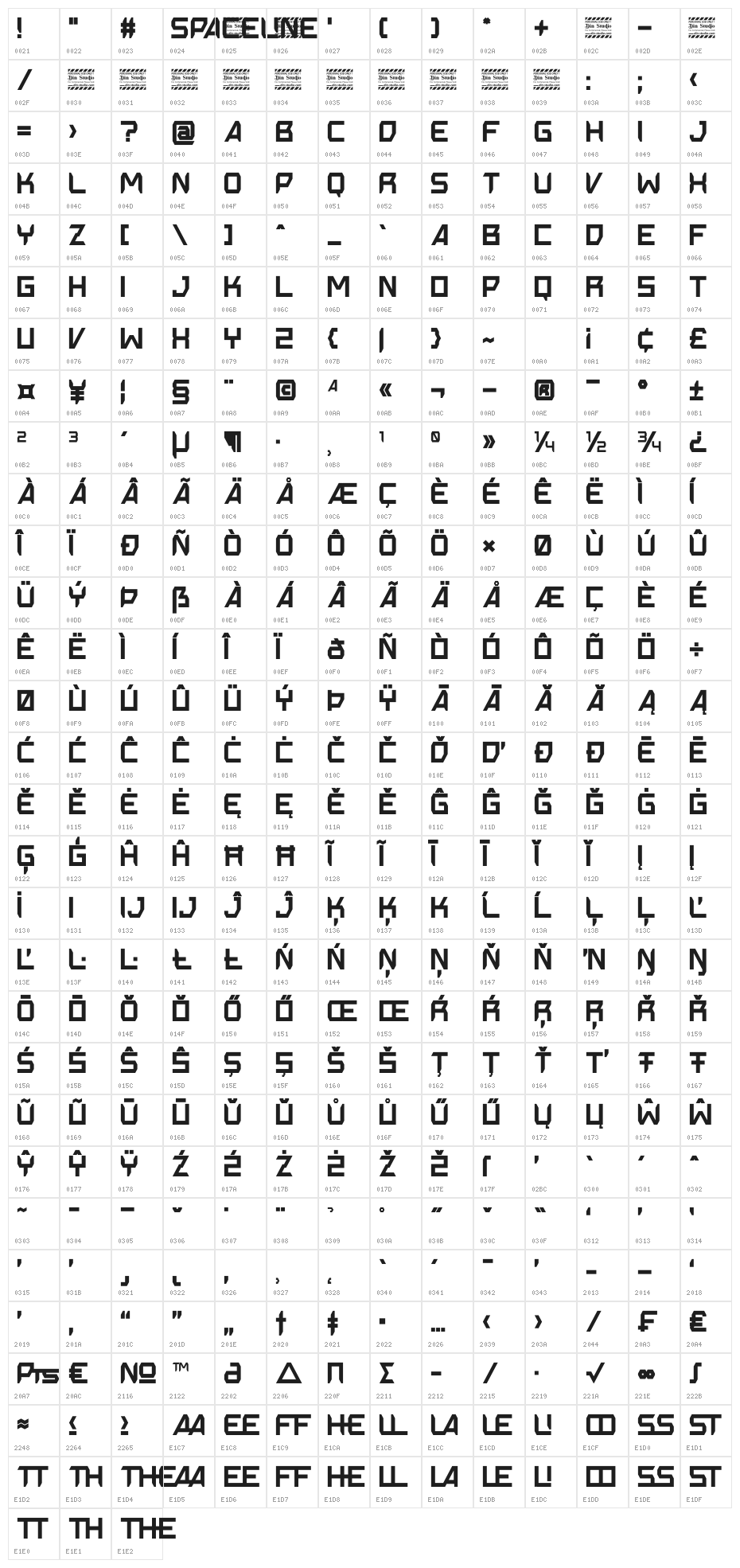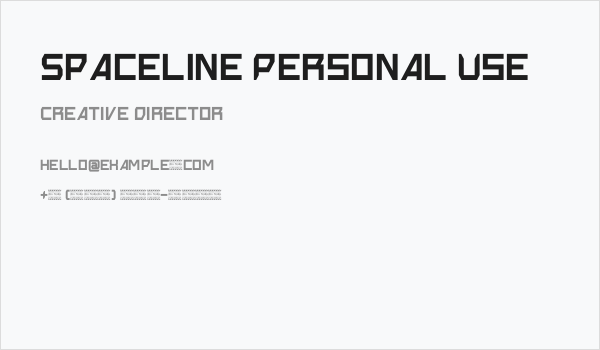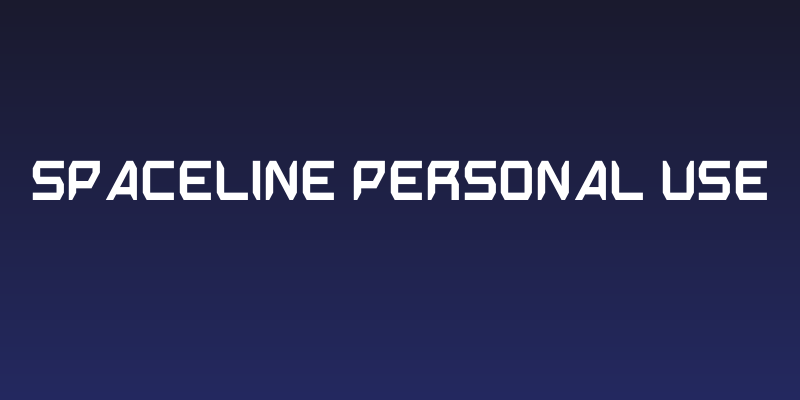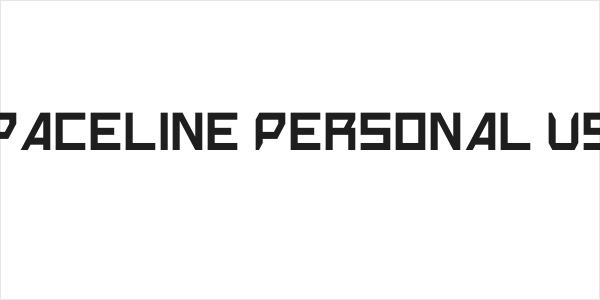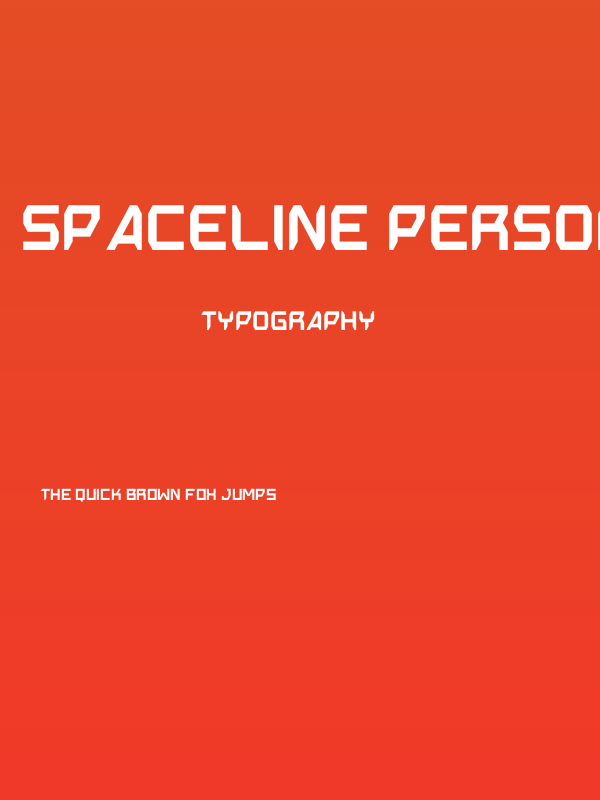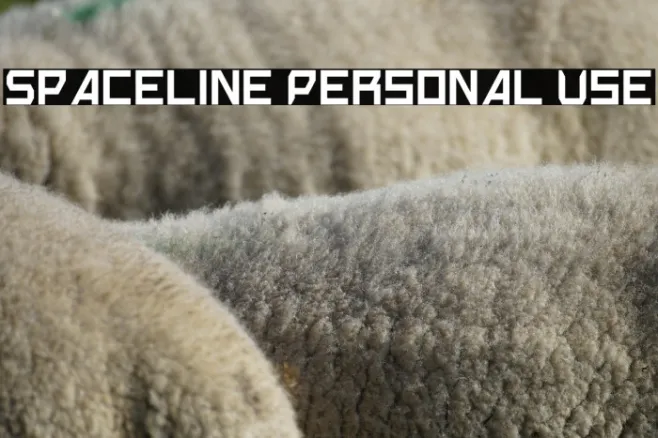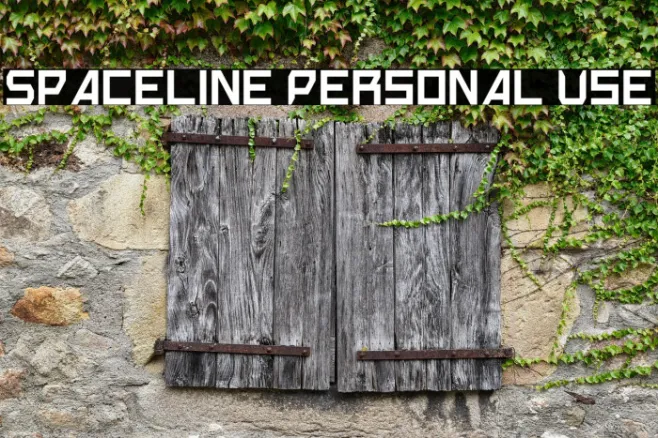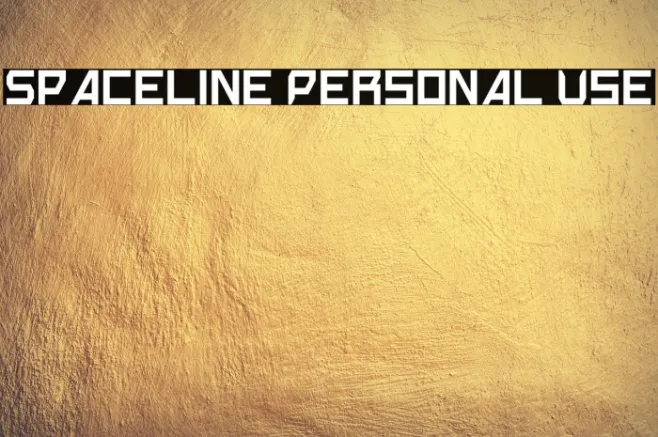
Spaceline Personal Use Font
Spaceline Personal Use Description
This font features a futuristic and geometric design, characterized by sharp angles and clean lines. The uppercase letters are bold and angular, giving a sense of modernity and technological advancement. The lowercase letters maintain the same angular style, ensuring consistency throughout the typeface. Numbers and special characters are designed to match the overall aesthetic, making them suitable for digital and sci-fi themed projects. The font's distinct style makes it stand out, ideal for projects that require a modern and edgy look.
| Proposed Projects | Ideal for sci-fi themed designs, tech branding, video game titles, and futuristic posters. |